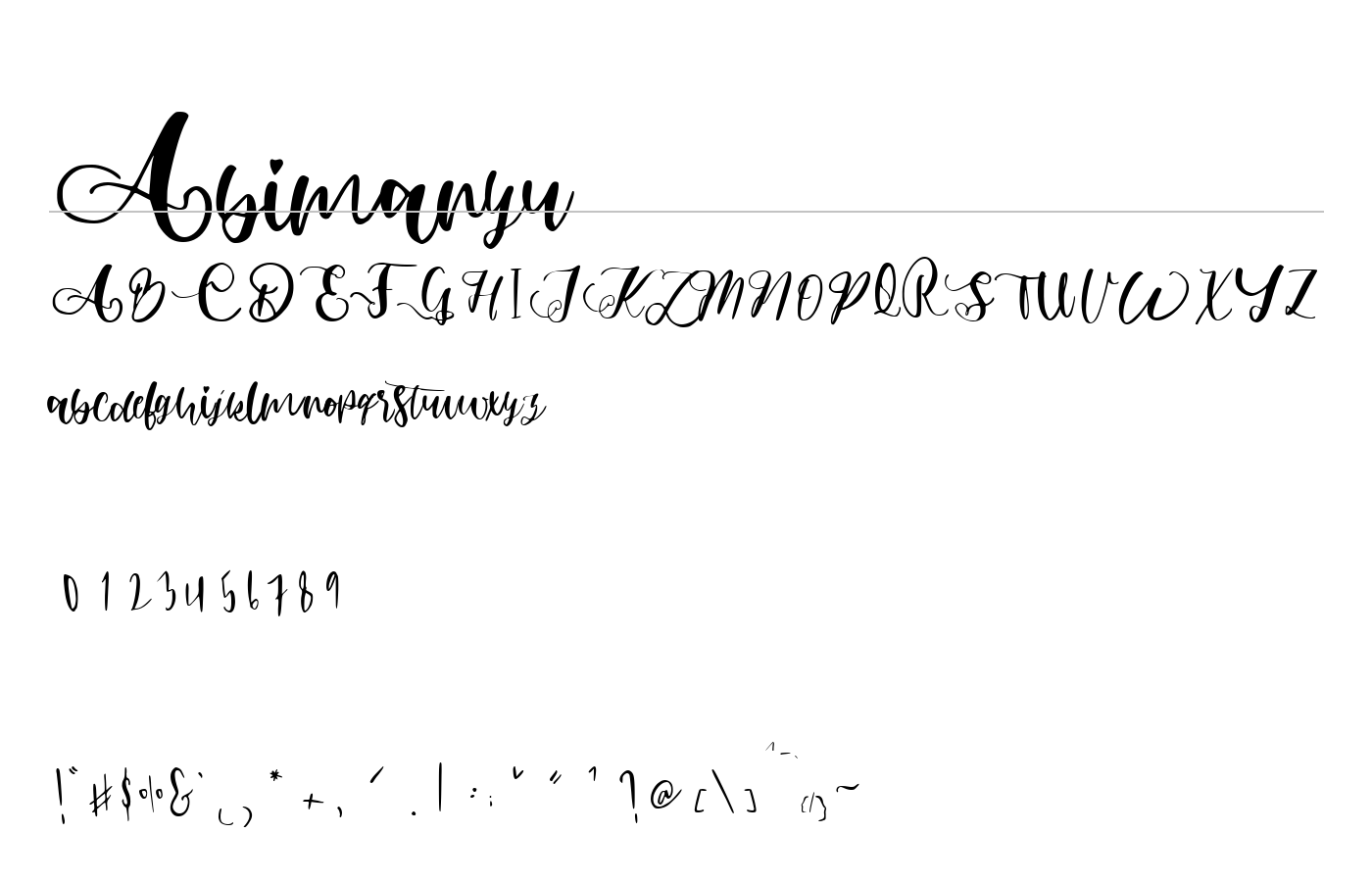
Abimanyu is an elegant and expressive script font characterized by fluid, hand-drawn strokes with graceful swashes and delicate flourishes, especially in its uppercase letters. It features a distinct contrast between thick and thin lines, giving it a romantic and artistic feel perfect for invitations, branding, and creative projects that seek a personal, sophisticated touch. This font shines in decorative applications such as logos and headlines where a stylish, handcrafted appearance enhances the overall design.
Abimanyu Font
About Abimanyu Font